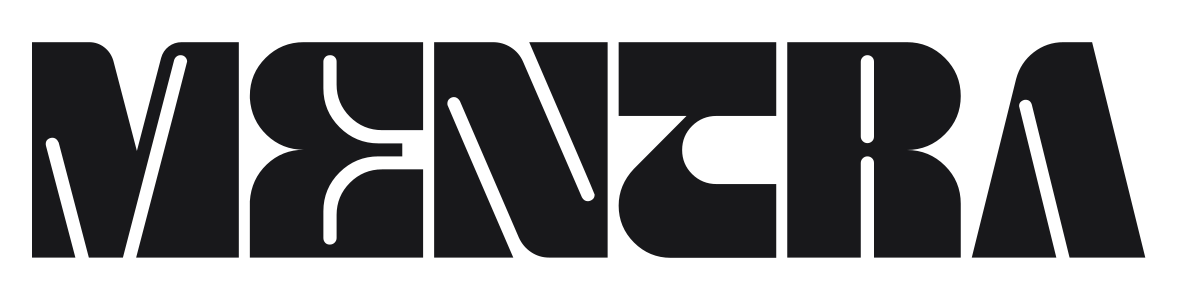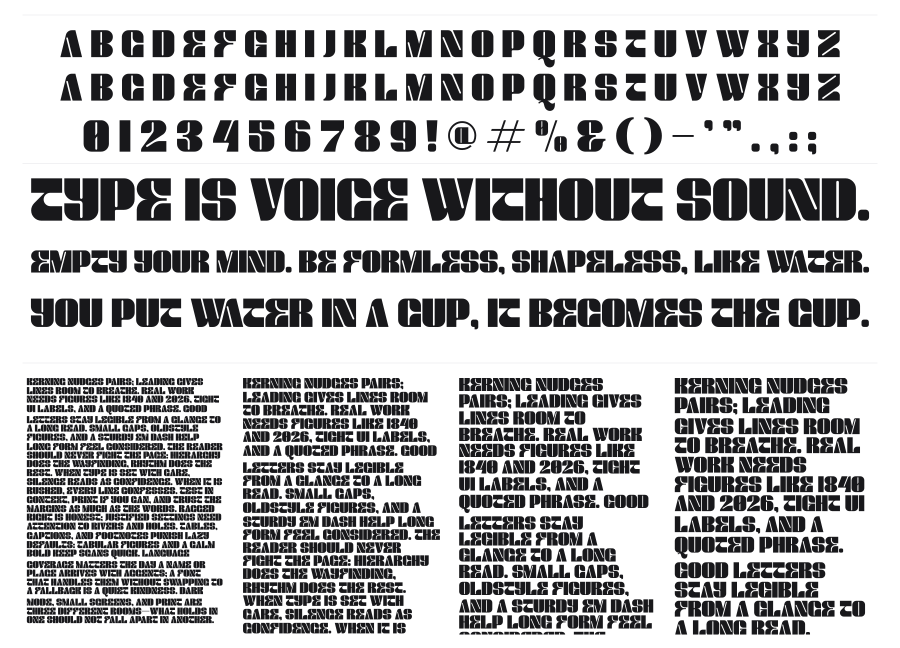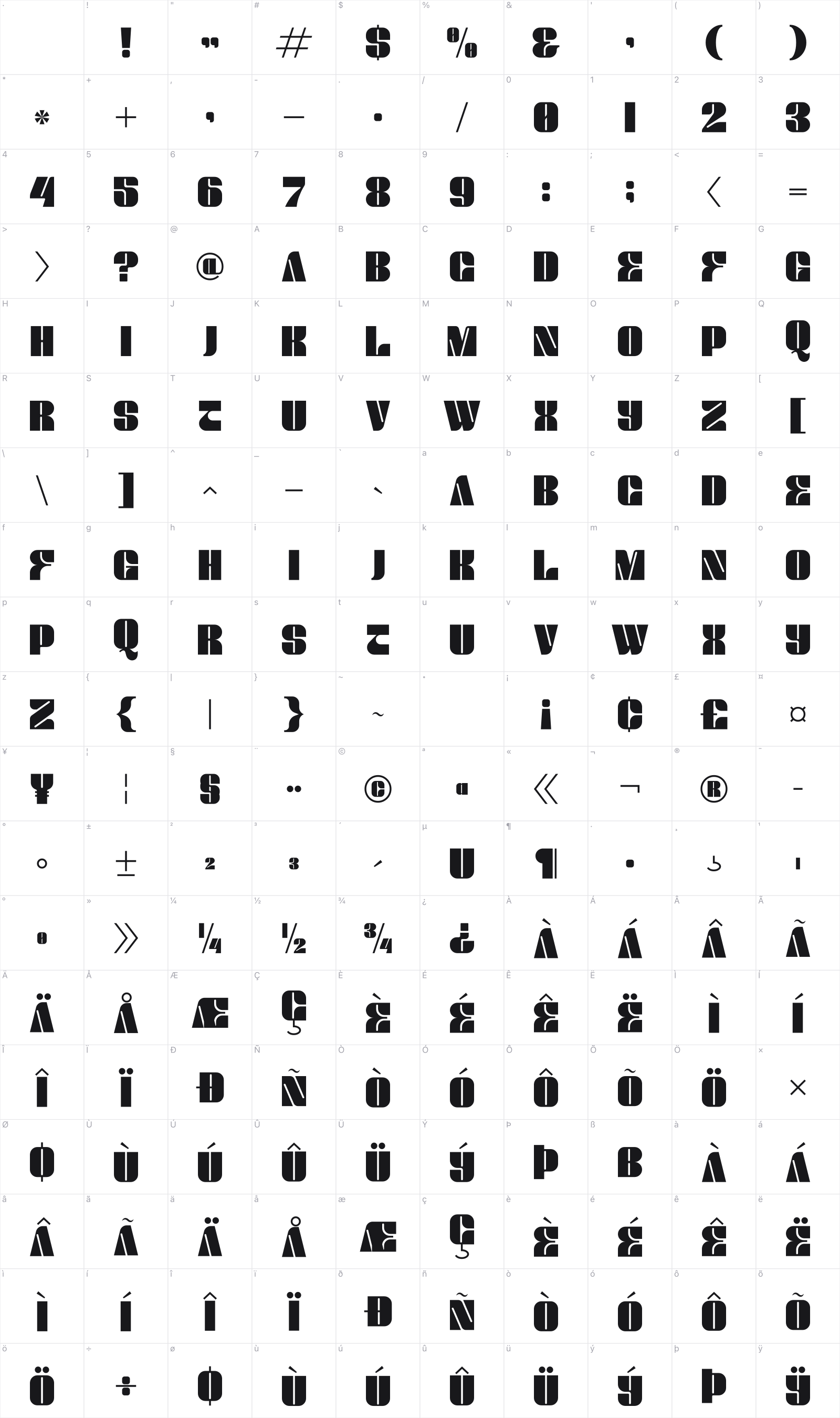
Mentra
Mentra is an ultra-bold condensed display font with characters so tightly packed they nearly merge into a single black mass. Sharp internal cutouts and angular negative spaces carve through the heavy stems, giving each letter a dramatic retro edge rooted in 1960s-70s poster culture. It commands attention at large sizes and works naturally in music, fashion, and entertainment contexts.